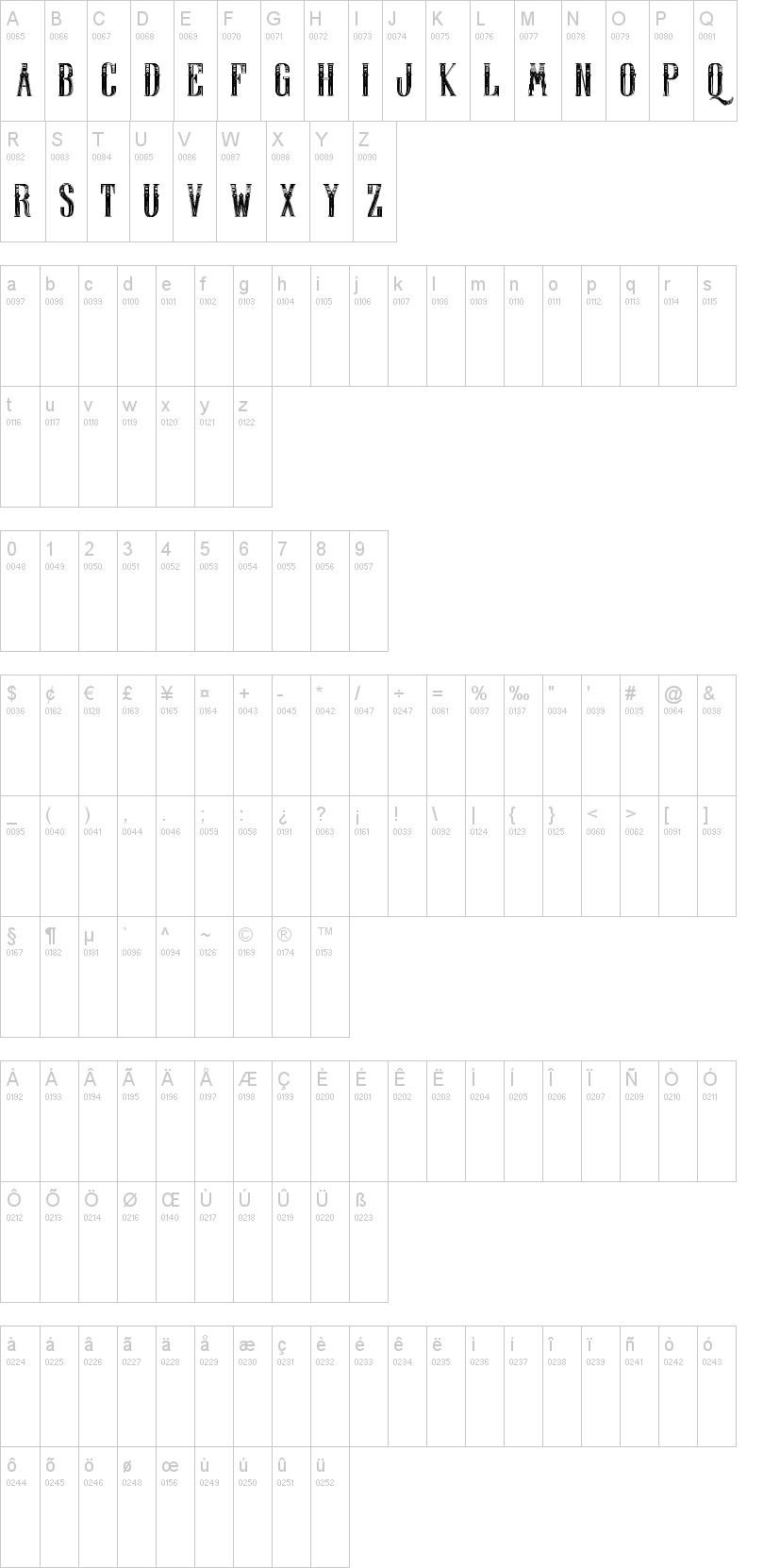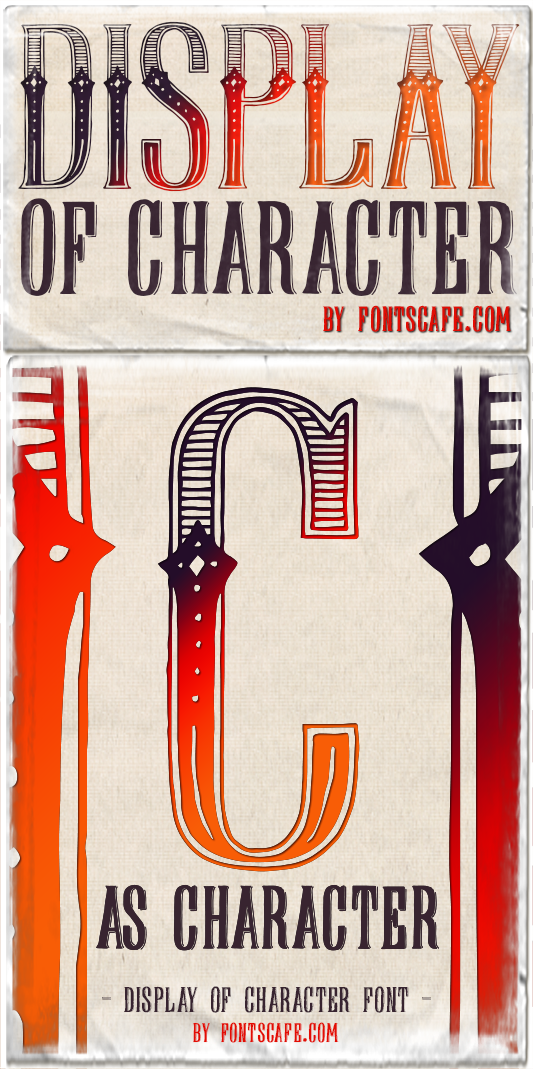
A Display font with Character, this is the main concept of this individual "Display of Character" font http://fontscafe.com/font/display-character, which is a very little part of something more amazing and big! Check out the whole Display Of Character Vintage Illuminated Pack here http://fontscafe.com/font/display-character-vintage-illuminated-pack if you want a complete "ready to use project" for all your ILLUMINATED graphics! ;)